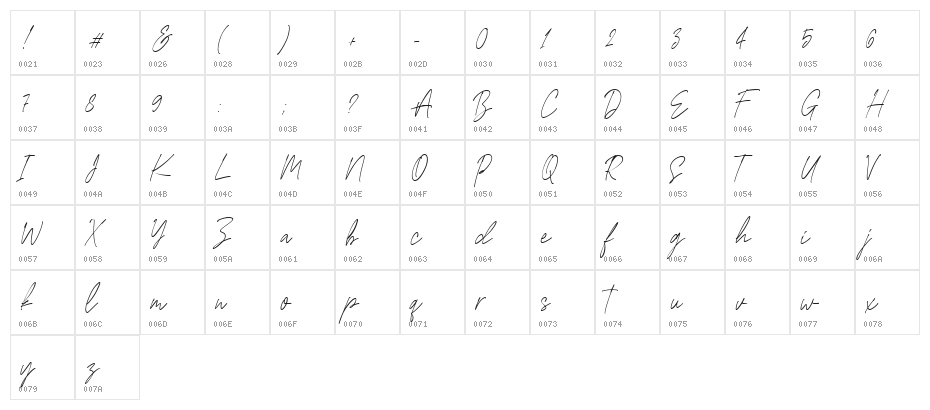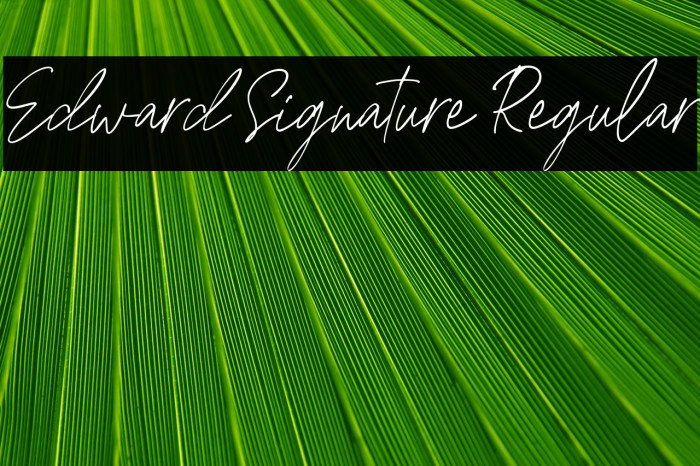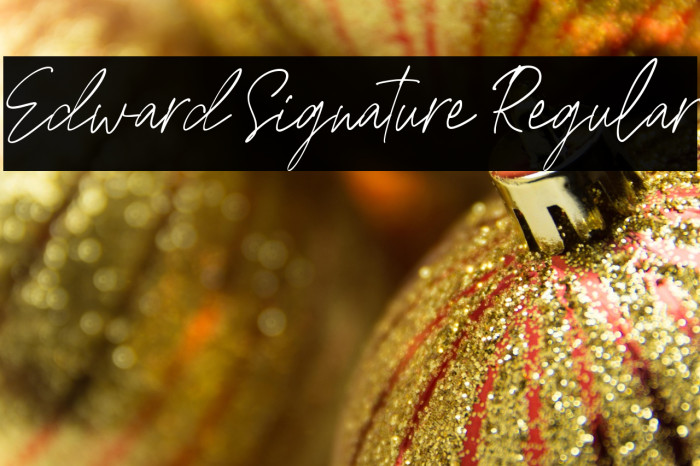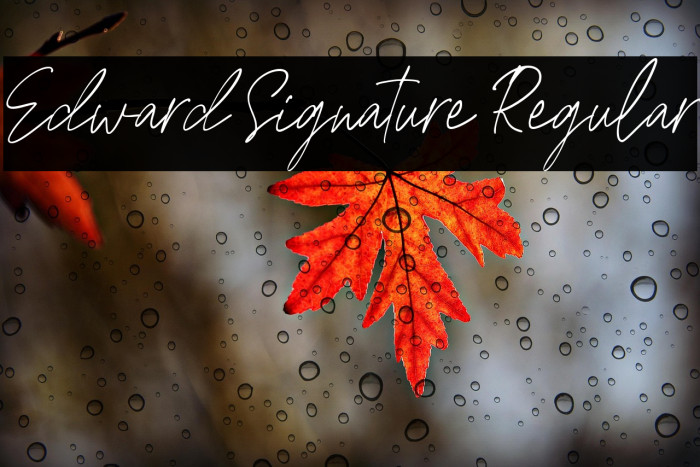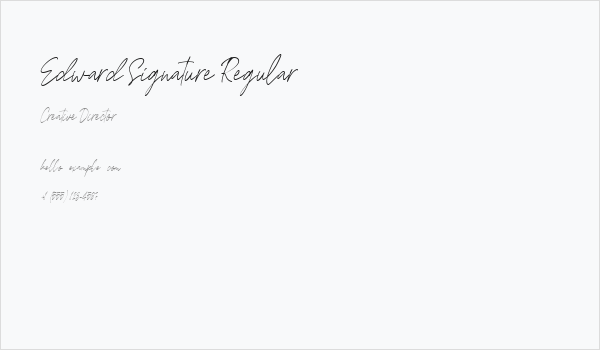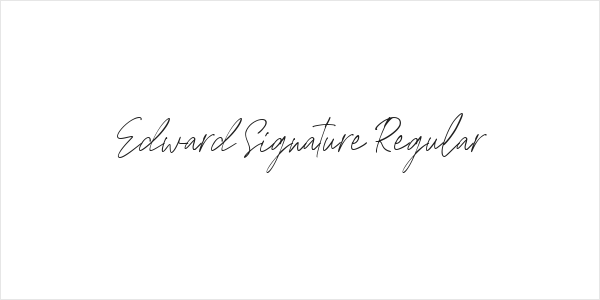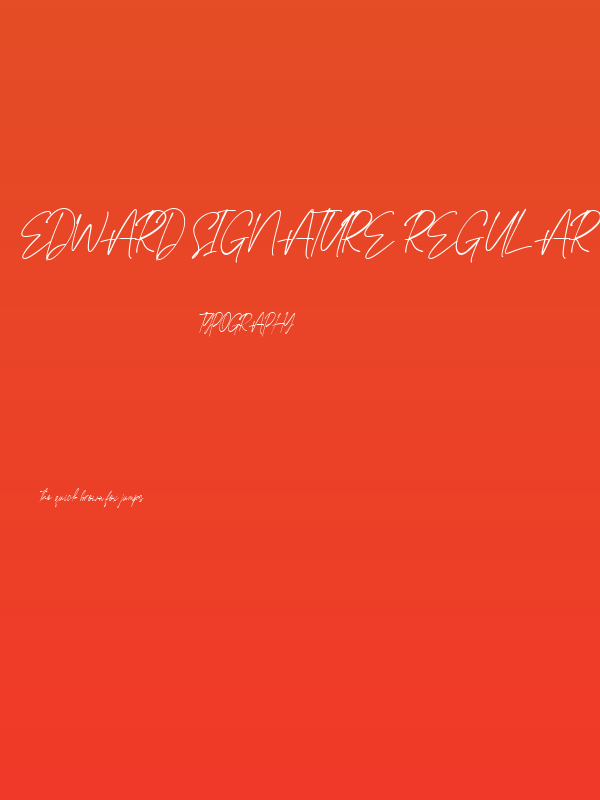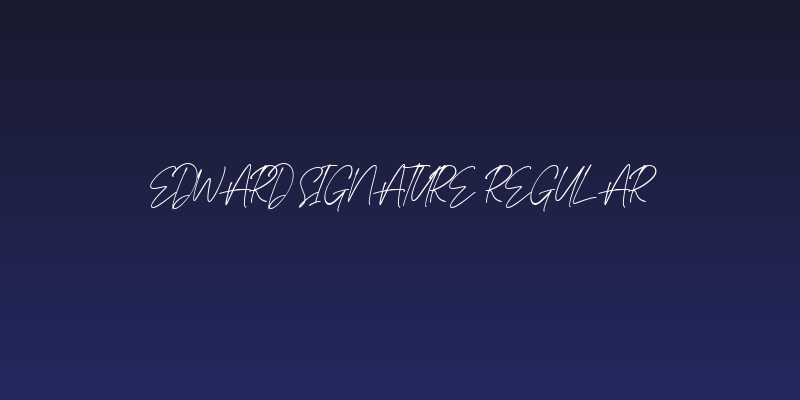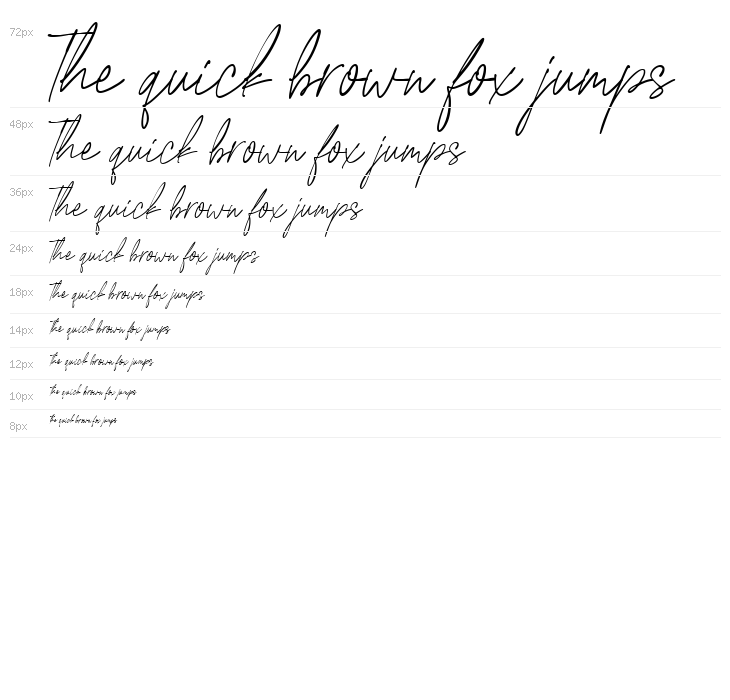
Edward Signature Regular Font
Edward Signature Regular Description
This font exudes a sophisticated and elegant handwritten style, characterized by fluid, cursive strokes that mimic the natural flow of a signature. The letters are connected seamlessly, creating a continuous and harmonious appearance. The uppercase letters are slightly more elaborate, while the lowercase letters maintain a consistent and smooth rhythm. The numerals and special characters are designed to complement the overall aesthetic, maintaining the same graceful curves and lines. This font is perfect for adding a personal touch to any project, conveying a sense of authenticity and refinement.
| Overall Style | Elegant, Sophisticated |
| Use Case | Logos, Invitations, Personal Branding |
| Proposed Projects | Ideal for wedding invitations, personal branding, logo design, and elegant stationery. |